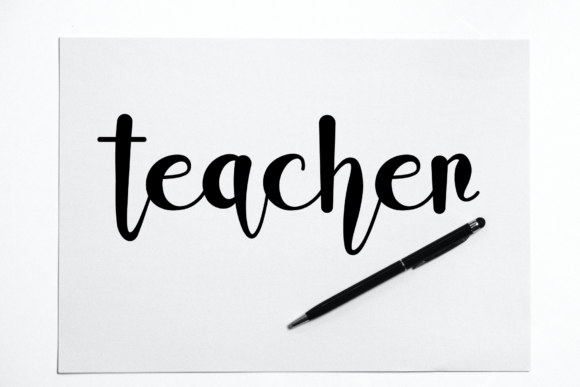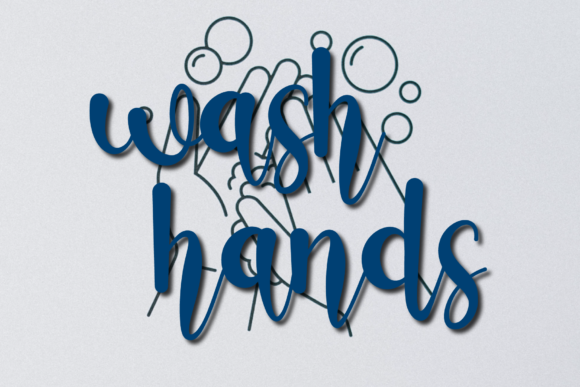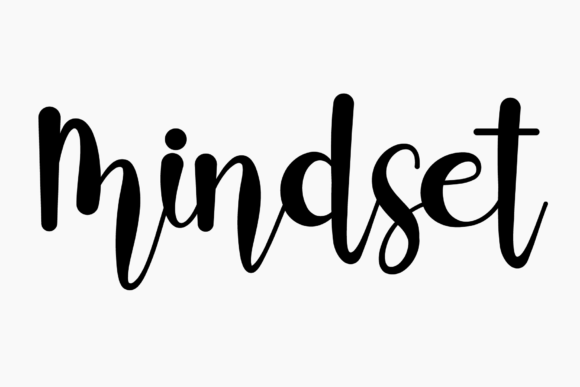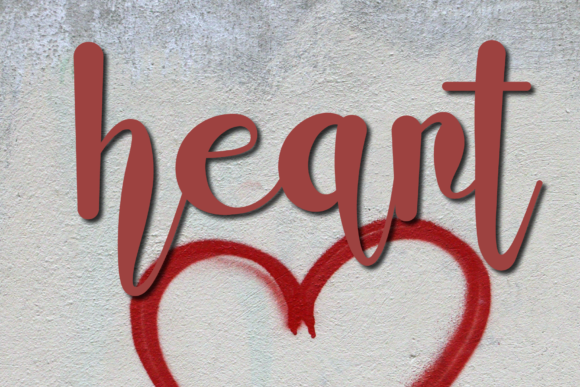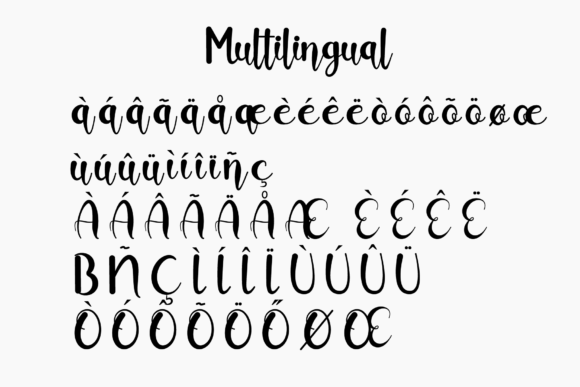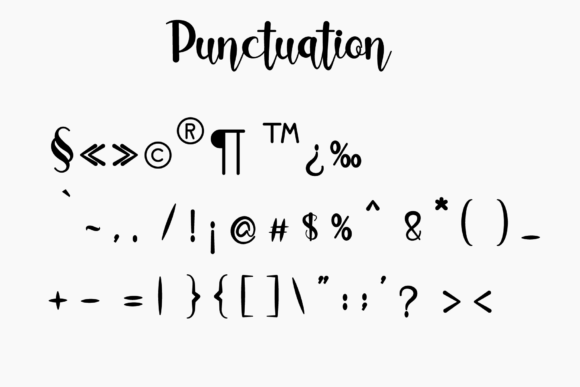
Introduction to Mauload Font
Have you ever stared at a blank canvas, waiting for the perfect idea to strike? As creatives, we’ve all been there – searching for that elusive spark to bring our design projects to life. For me, it was a simple yet striking font that caught my eye. I was browsing through design resources, looking for the perfect addition to a client’s social media campaign, when I stumbled upon the Mauload Font. Its elegant script style immediately drew me in, and I knew I had to learn more.
As a designer, having access to high-quality fonts like Mauload Font can be a game-changer. Not only do they add a touch of sophistication to our designs, but they also provide a level of professionalism that’s hard to replicate with generic fonts. With its unique style and transparent background, Mauload Font is the perfect design resource for any creative project – from beautiful stationery art to eye-catching social media posts.
Key Features of Mauload Font
- High-quality design resource suitable for creative projects, including logos, branding, and graphics.
- Transparent background option, allowing for seamless integration with various design elements.
- Includes a wide range of characters, including uppercase and lowercase letters, numbers, and special characters.
- Designed with a high resolution of 300 DPI, making it suitable for use in print and digital media.
- Unique, creative design that sets it apart from other fonts, making it a great choice for designers looking to add some flair to their projects.
Honest Review: Mauload Font
As a designer, I’ve had the opportunity to work with a variety of fonts for my creative projects, and I’m always on the lookout for high-quality resources like the Mauload Font. In this review, I’ll share my honest thoughts on this font and whether it’s worth adding to your design arsenal.
- Unique Design: The Mauload Font has a distinctive and quirky design that sets it apart from more generic fonts. It’s perfect for adding a touch of personality to your design projects.
- High Quality: The font is well-designed and has a professional finish, making it suitable for a range of creative projects.
While the Mauload Font is a great resource, there are a few limitations to consider:
- Transparent Background: The font may not be suitable for designs that require a transparent background, as it can be difficult to achieve a seamless look.
- Limited Character Set: The font’s character set may not be as comprehensive as some other fonts, which could be a limitation for designers who need to work with a wide range of characters.
Overall, I’m impressed with the Mauload Font and its potential to add a unique touch to design projects. While it may not be perfect for every design scenario, it’s a valuable resource for designers who want to inject some personality into their work.
Mauload Font is a versatile font that can be used in a variety of projects, including business cards, brochures, and social media graphics. It’s also great for creating a consistent brand identity across all your marketing materials.